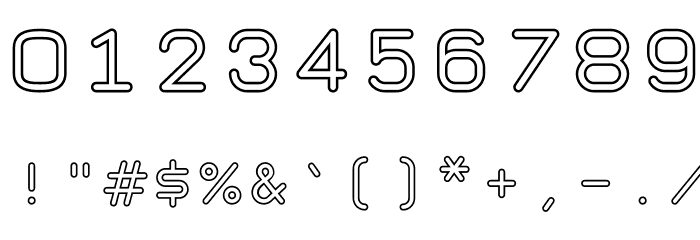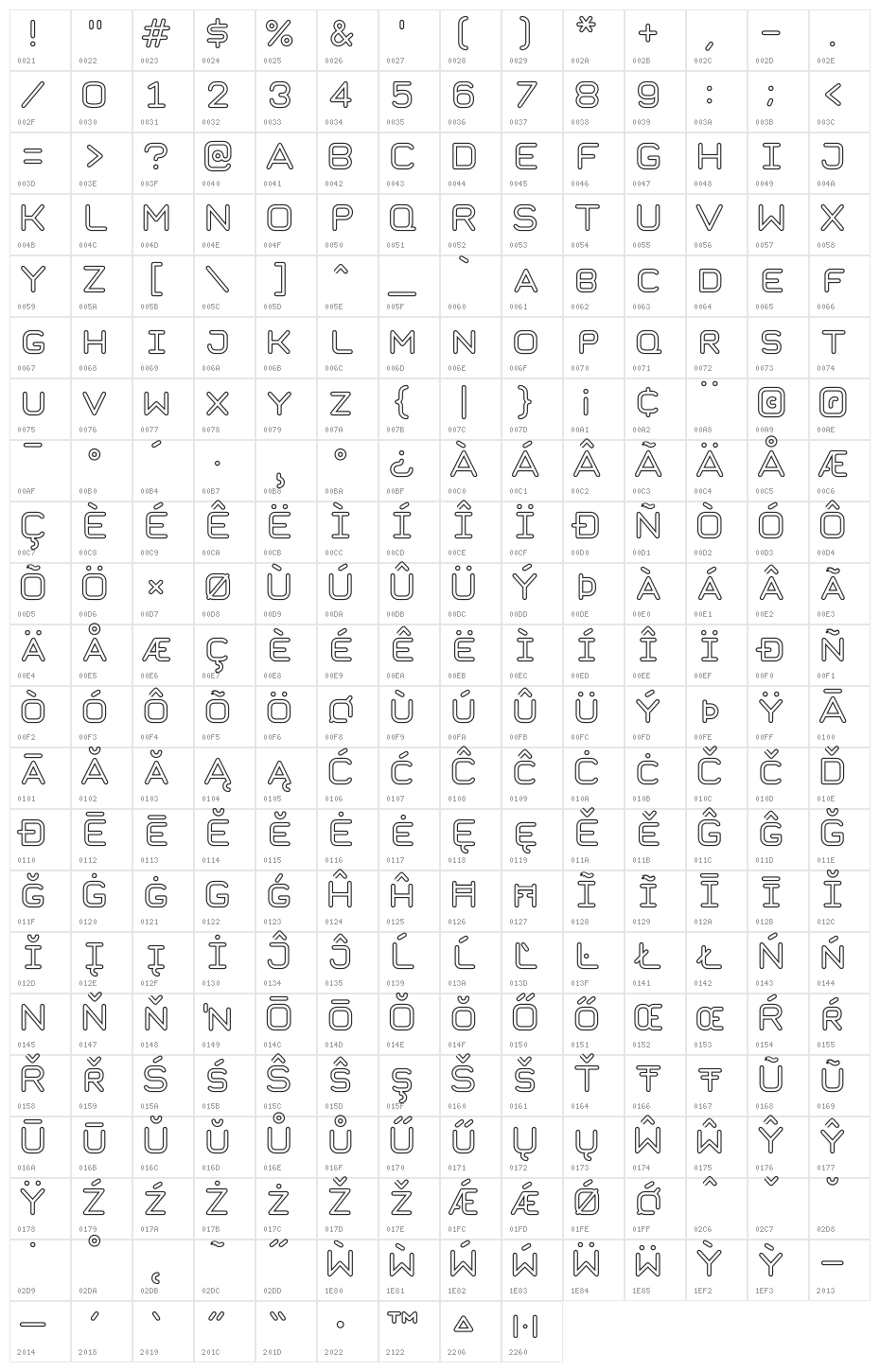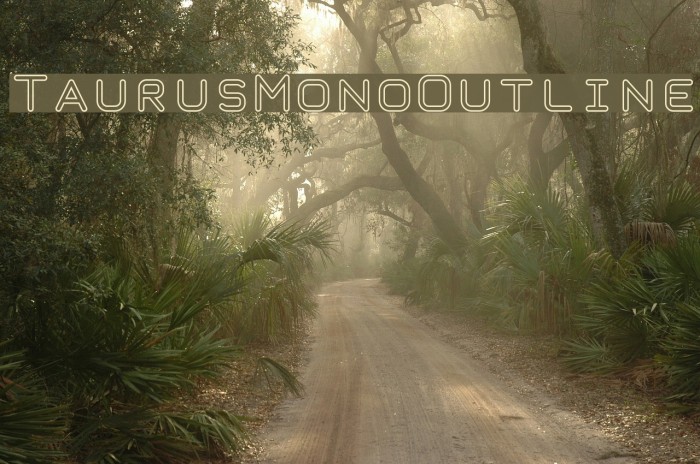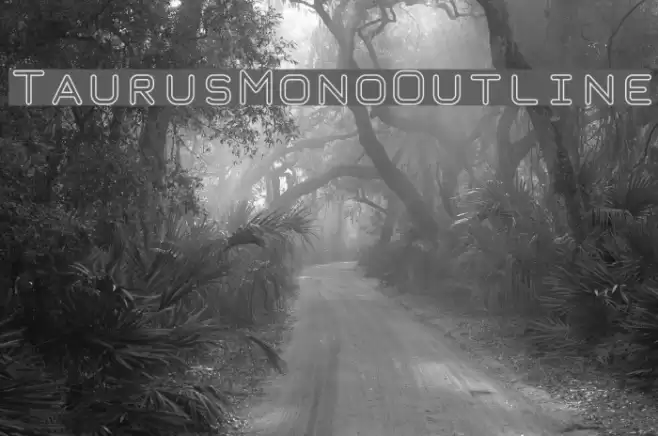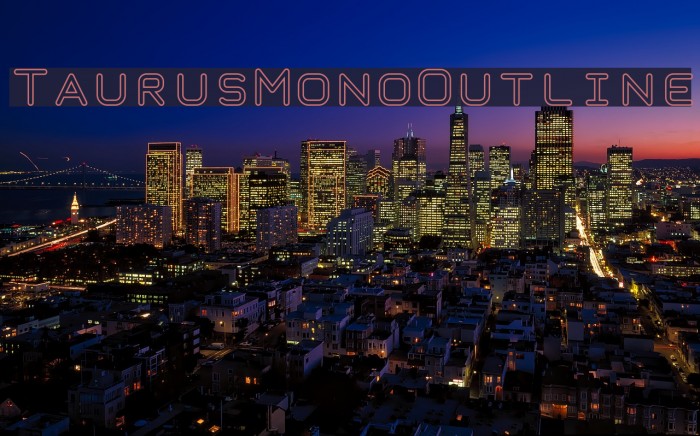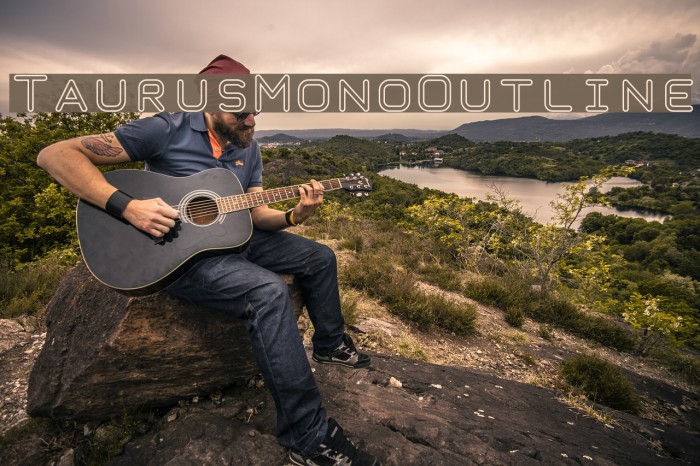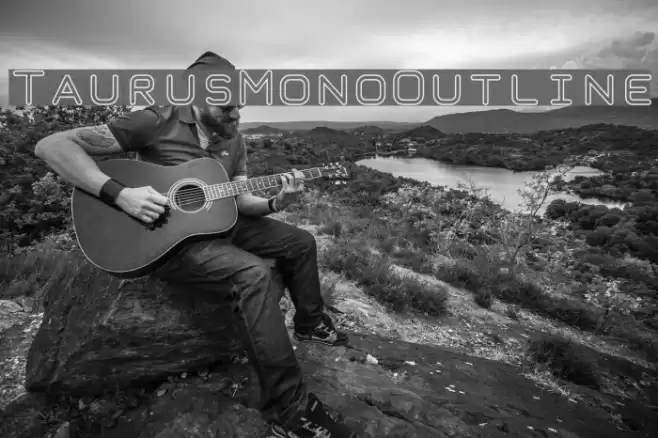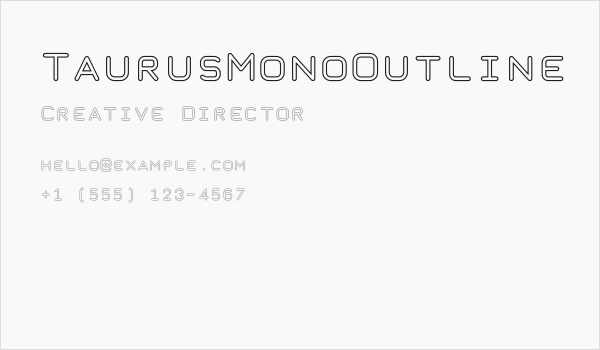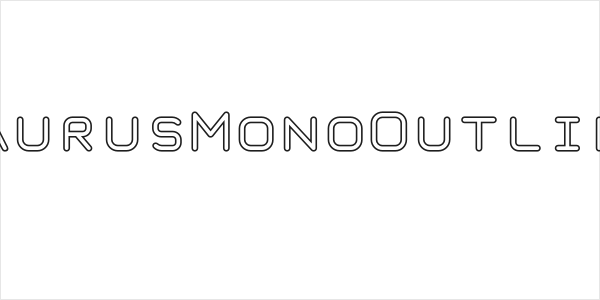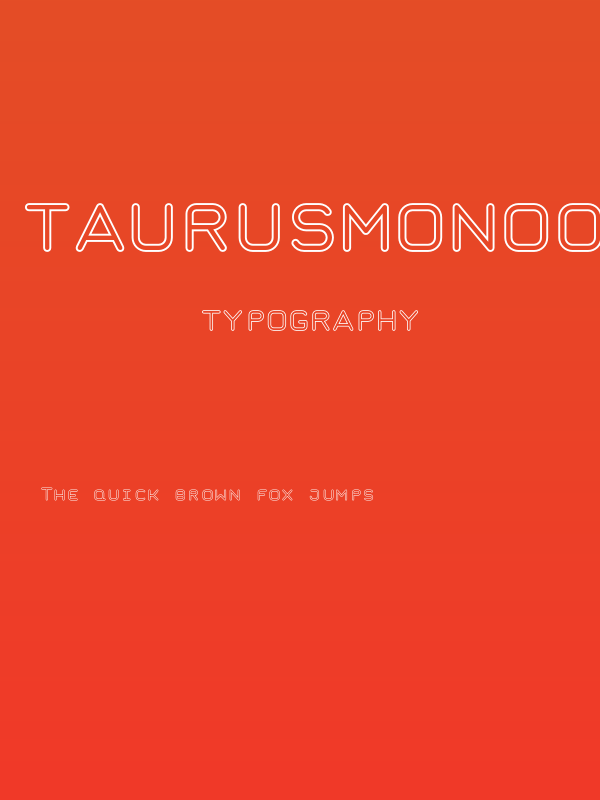
TaurusMonoOutline Font
TaurusMonoOutline Description
This font features a distinct outline style that gives it a modern and futuristic appearance. The characters are monospaced, ensuring uniformity in width, which is ideal for coding and technical applications. The uppercase and lowercase letters maintain a consistent geometric structure, while the numerals and special characters complement the overall design. The outline effect adds a unique dimension, making it suitable for creative and digital projects where a contemporary look is desired.
| Use Case | Logos, Tech interfaces, Digital design |
| Proposed Projects | Ideal for digital design projects, coding interfaces, tech branding, and modern advertising. |